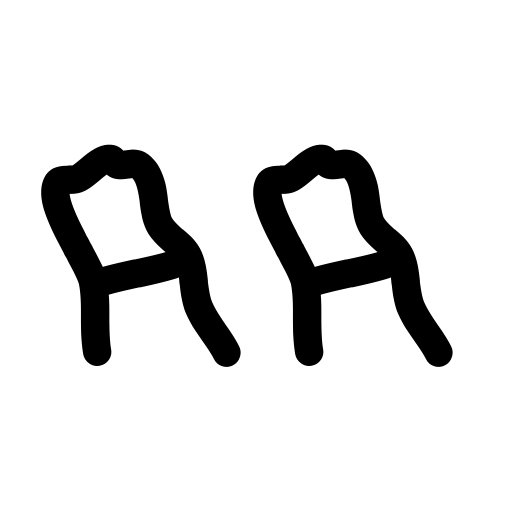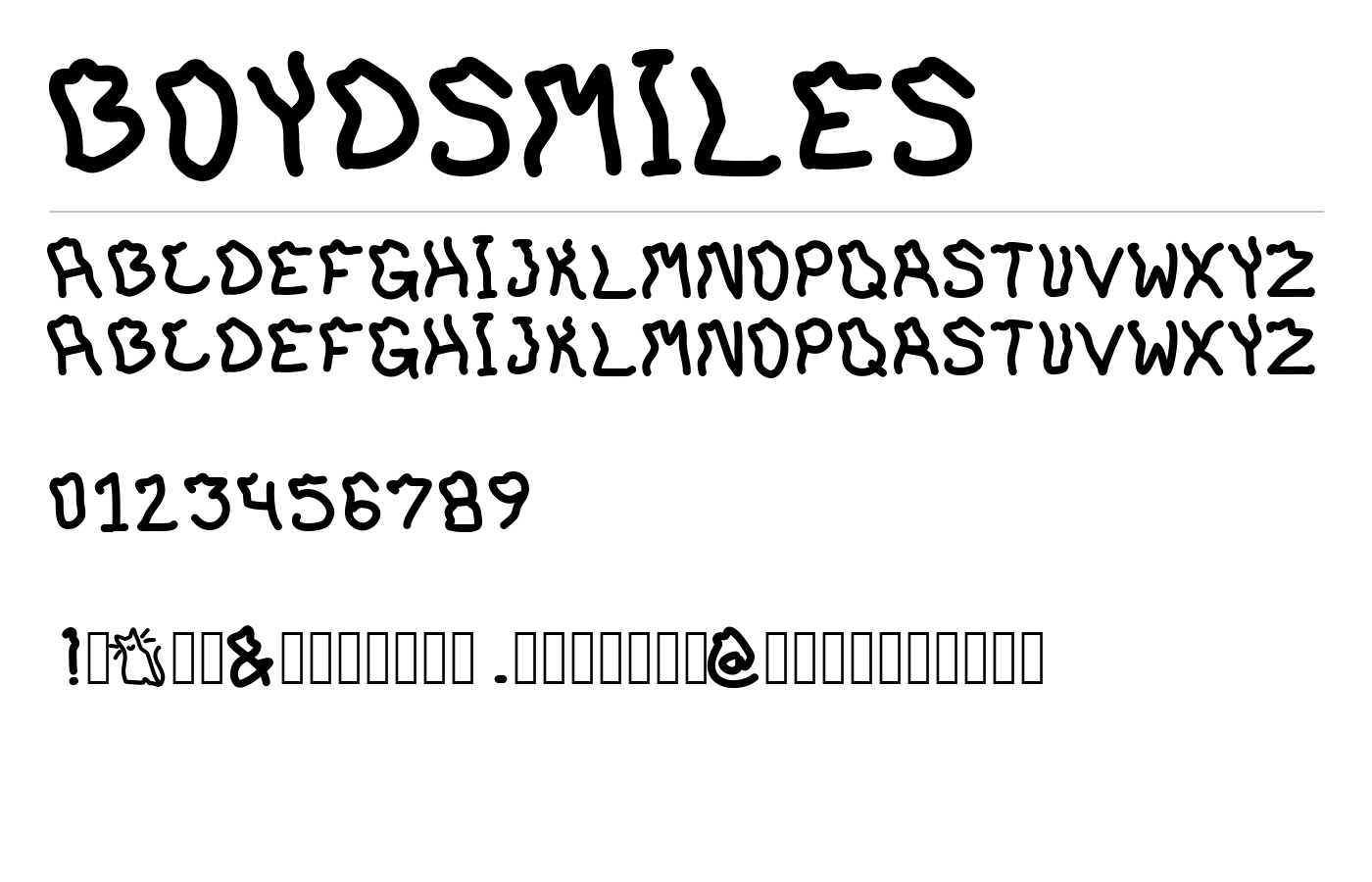
BoydSmiles is a playful, hand-drawn sans serif font with irregular, wavy strokes that give it a quirky and friendly character. Its casual, whimsical style works well for creative projects, children’s materials, and informal branding, bringing a sense of fun and approachability to any design. This font is ideal for headlines, logos, and playful packaging where a unique, relaxed vibe is desired.
BoydSmiles Font
About BoydSmiles Font